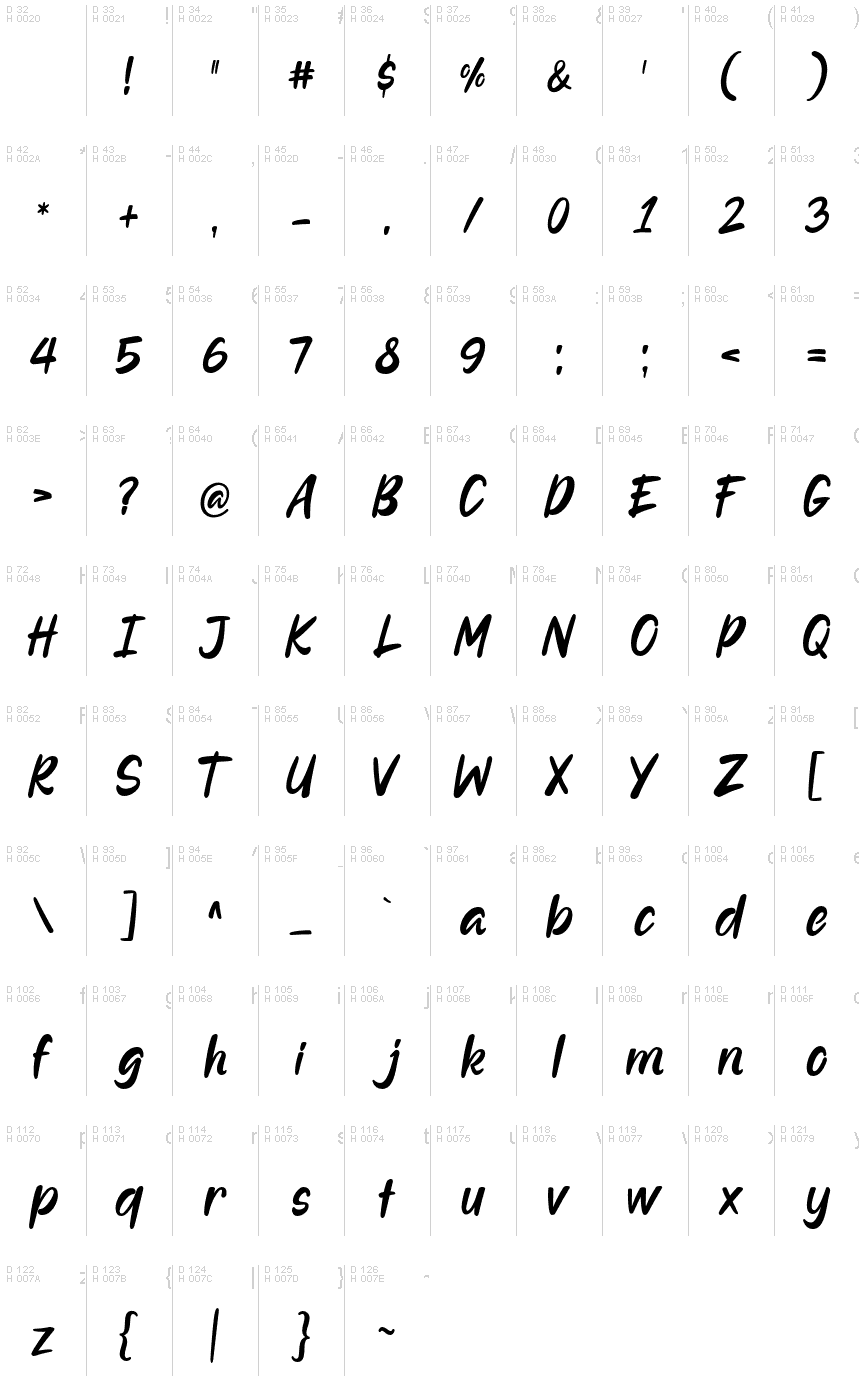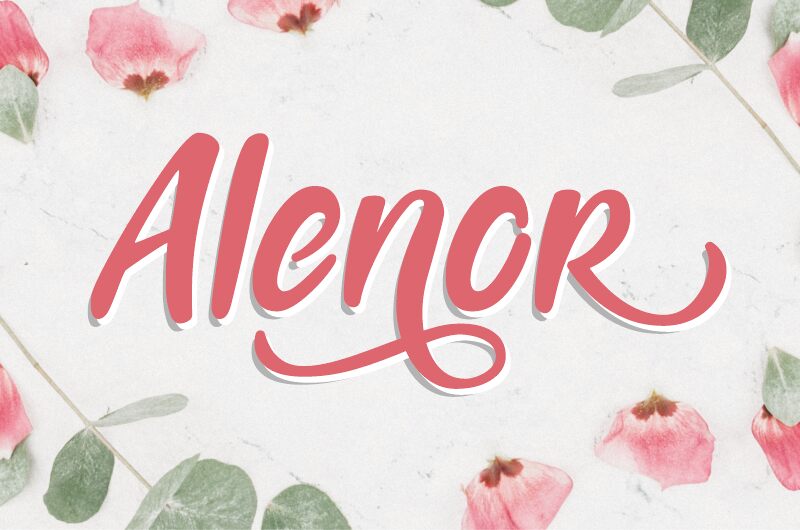
Alenor
Alenor is a stunning brush font created by Aysa, Keithzo, and Situjuh Nazara. Its smooth brush style adds a touch of elegance to any design project. With its bold weight, this typeface is perfect for creating eye-catching headlines and titles. Alenor's unique curves and strokes are ideal for branding projects, packaging designs, social media graphics, and even wedding invitations. This versatile font can be used in both digital and print media with ease. Stand out from the crowd with Alenor – the perfect addition to any design project that demands a touch of sophistication.